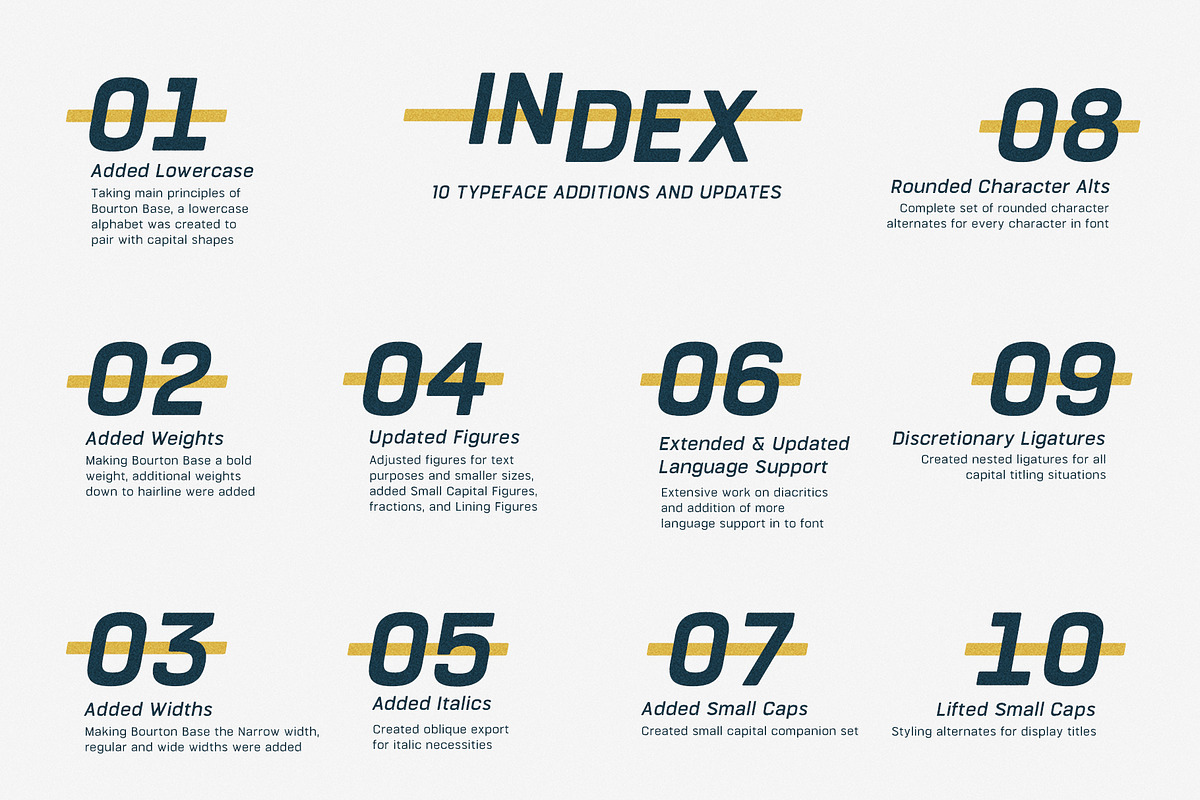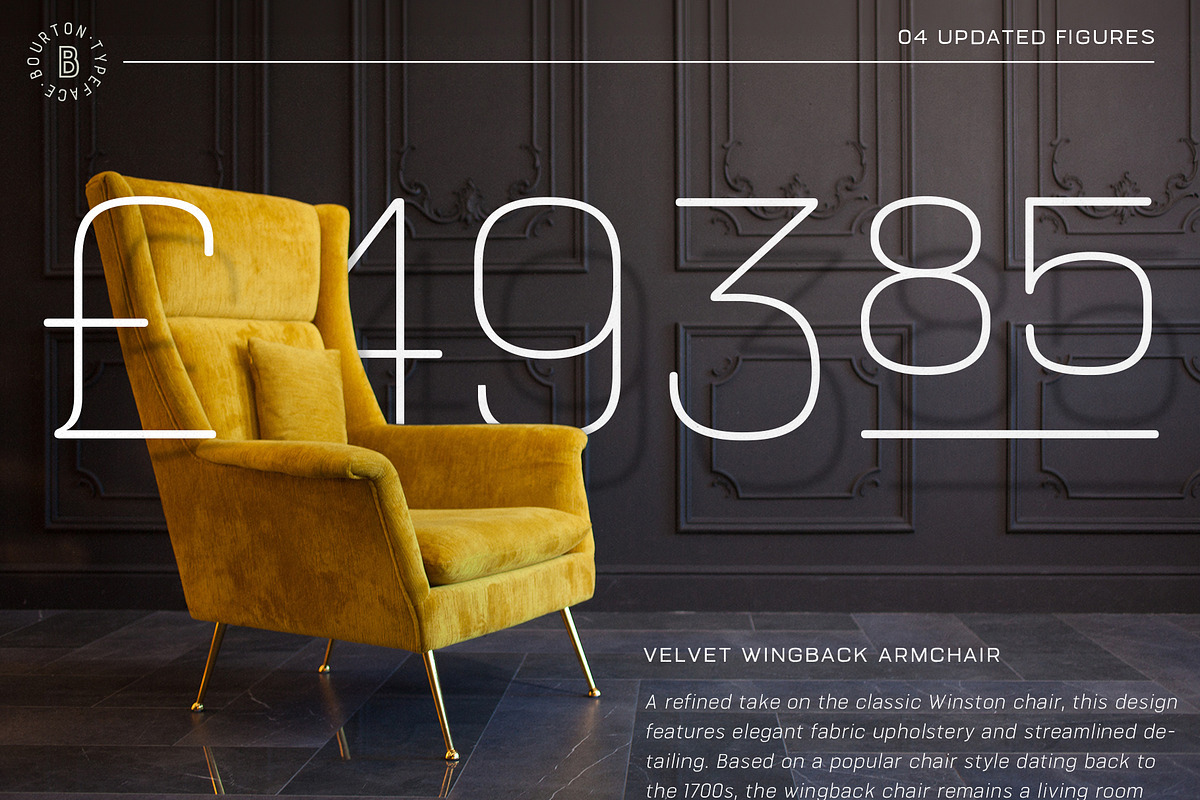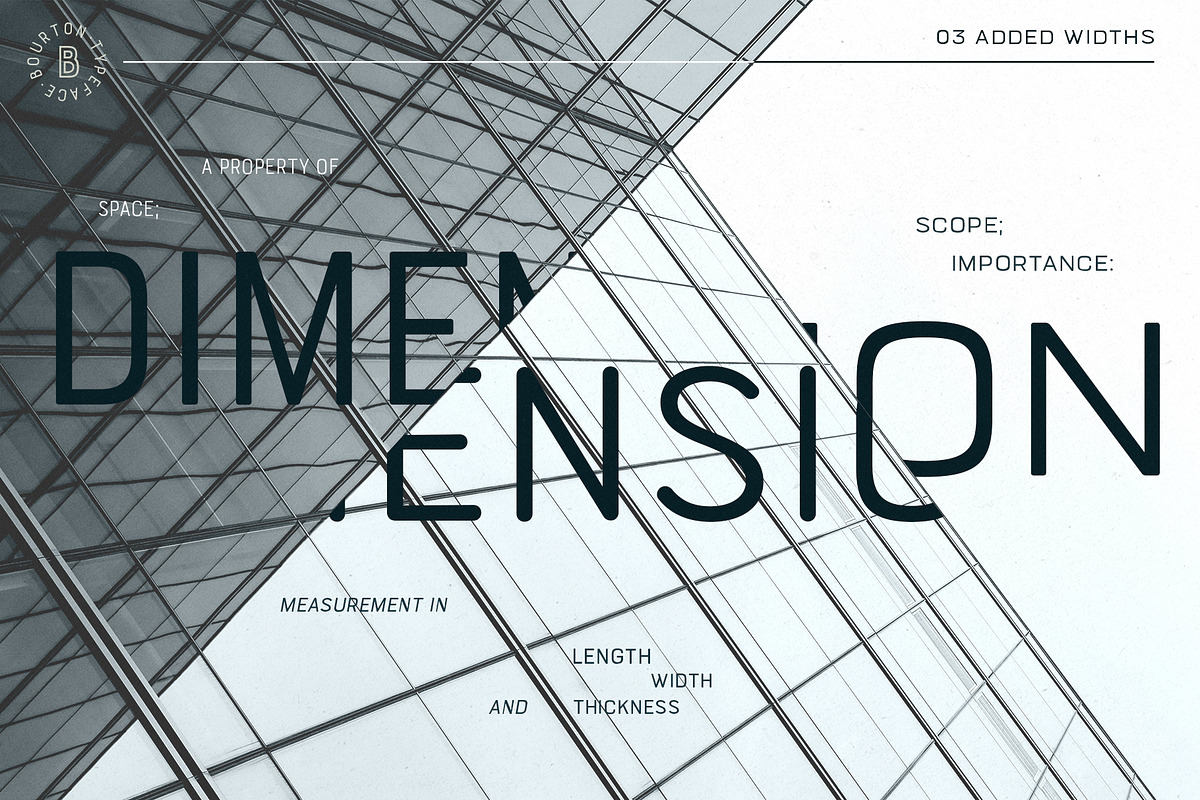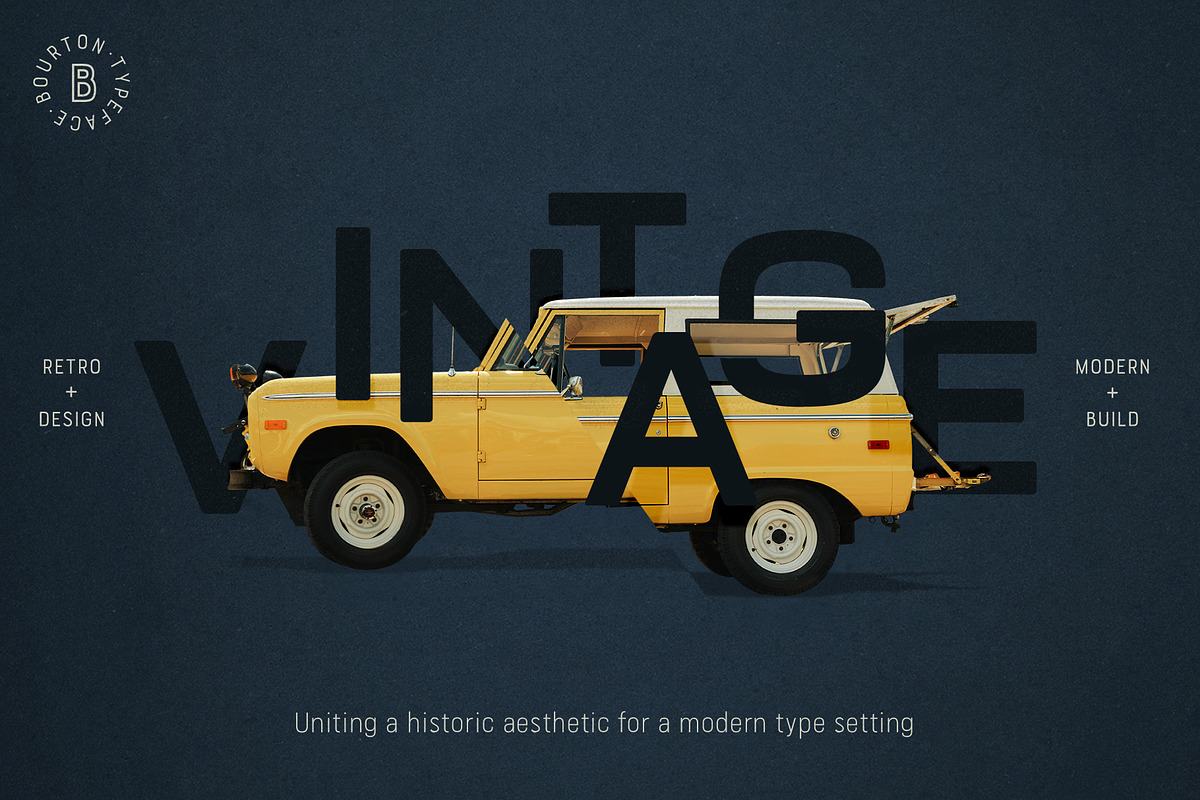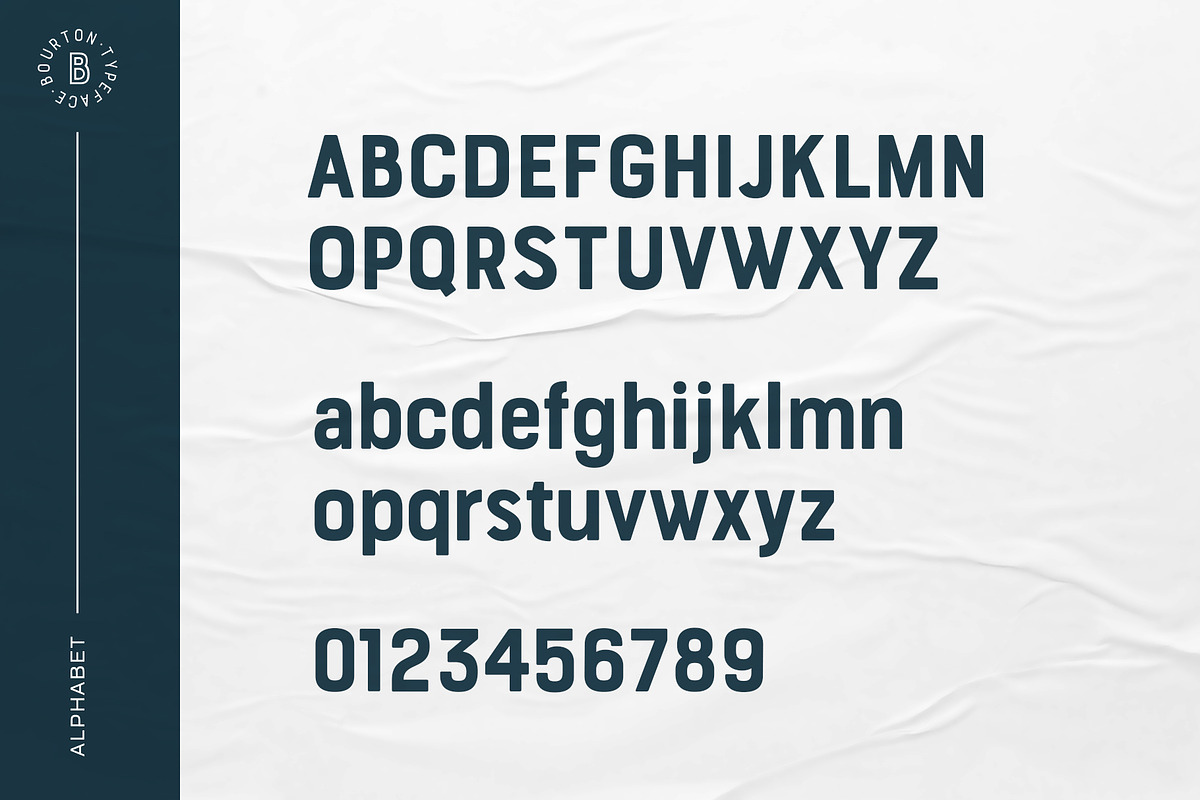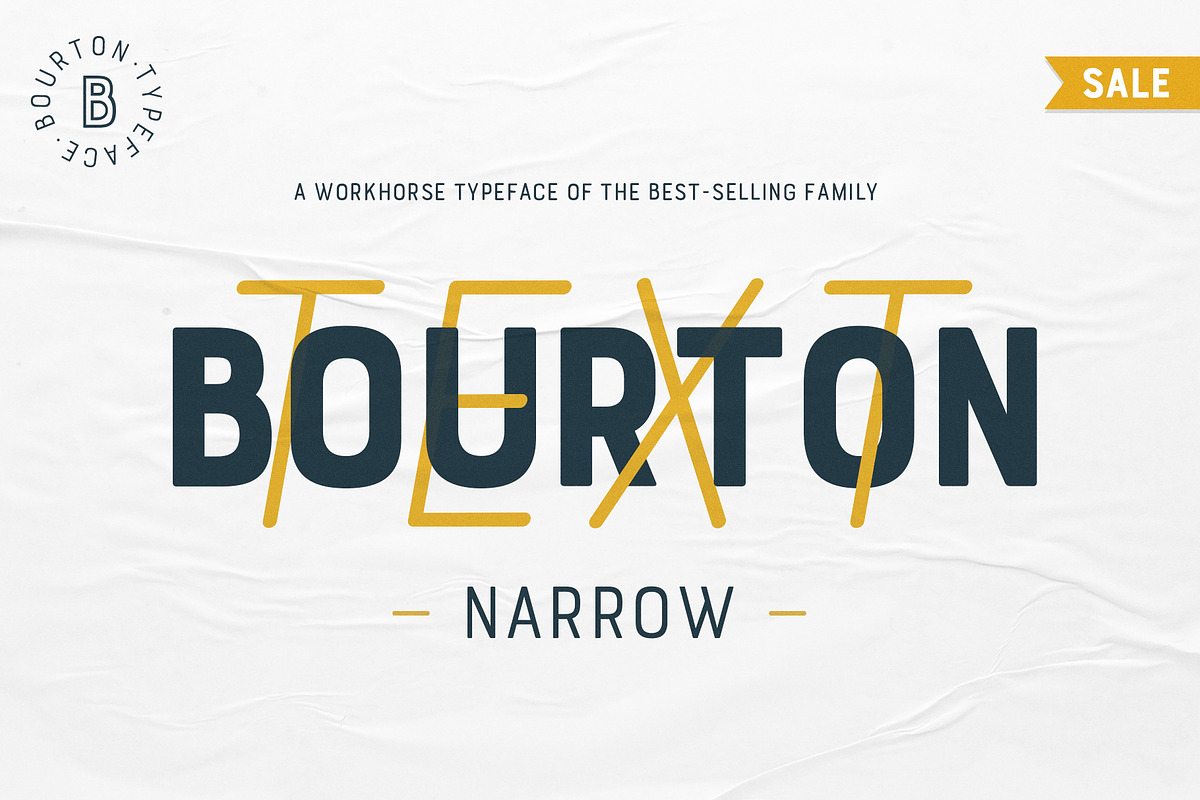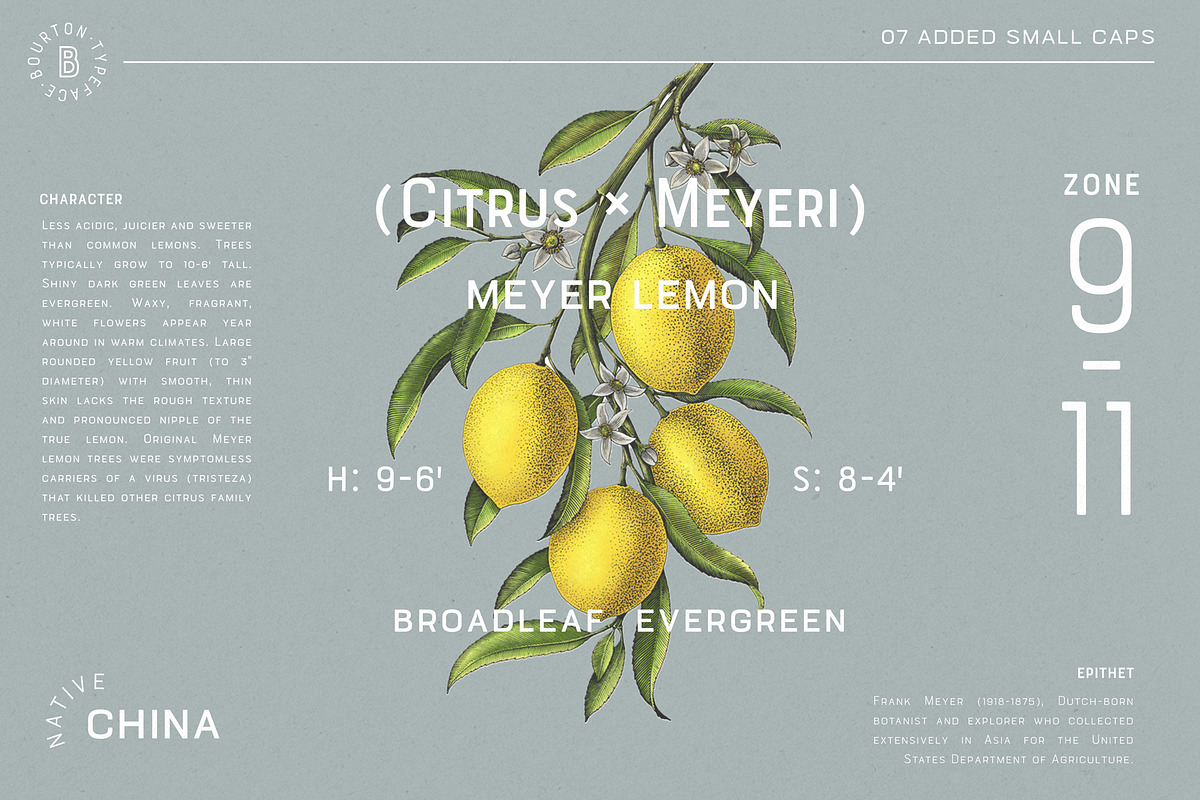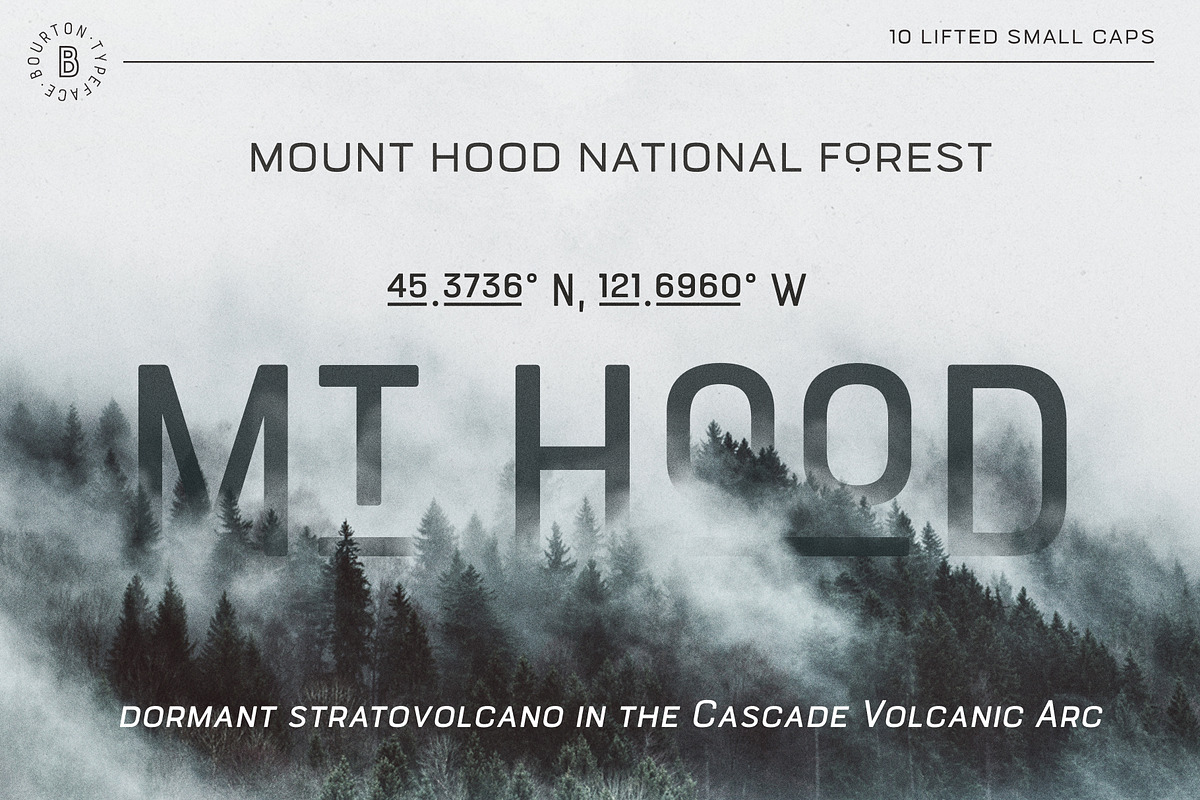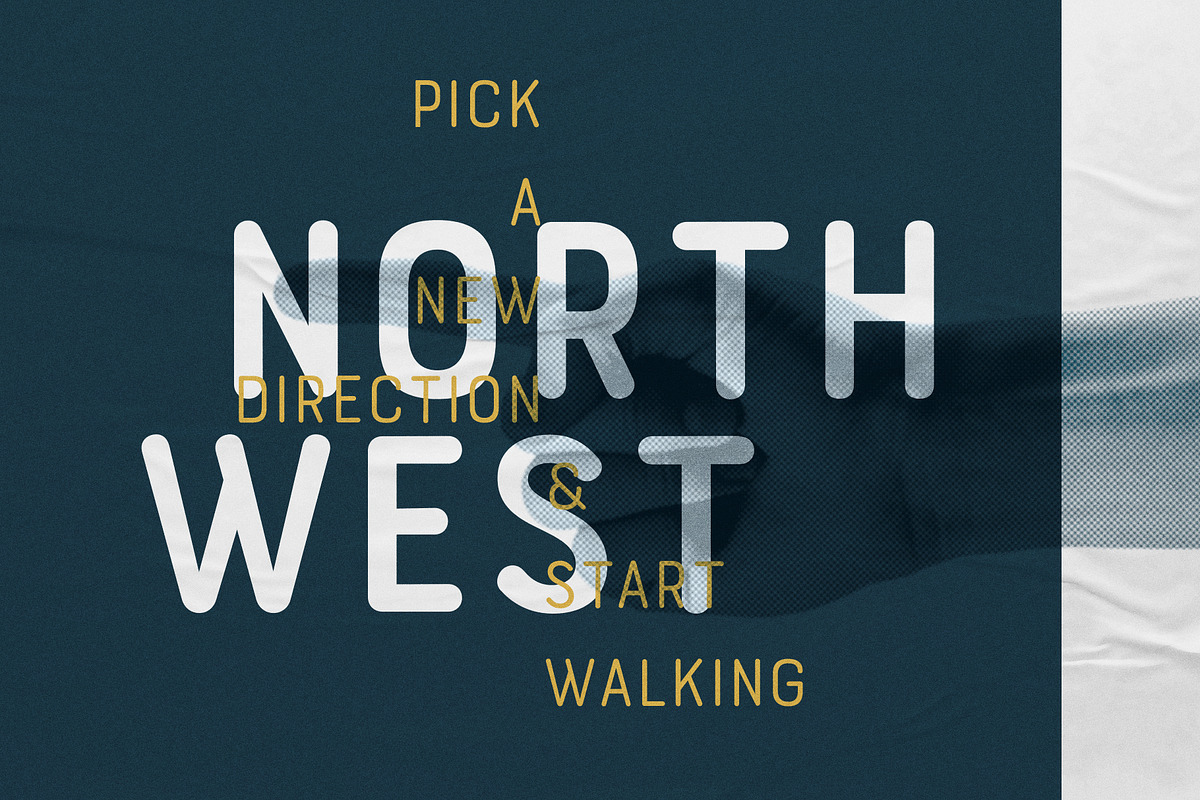
Bourton Text is a modern sans-serif typeface family perfect for both text type settings and display purposes. While it’s not a layering type family like its sibling, Bourton, it comes brimming with features, extras and over 2,000 characters in each of the 42 fonts that make it stand on its own.
HISTORY // Bourton Text is a new take of the Bourton family that was one of the best-selling and customer favorite fonts of 2016. After countless requests for lowercase alphabet, or suggestions for a font pairing with Bourton, this text setting family was created based on the original shapes of Bourton.
DESIGN & CREATION // In taking Bourton Base as the starting point, it became the narrowest width and boldest weight. Lowercase shapes were made to match the aesthetic and details of the popular capitals. As Bourton was a heavy display font, some small tweaks were done to make it more fitting for smaller text settings, including reducing the letter-spacing and reworking some counters. Some areas needed complete reconstruction, such as the figures. These shapes needed to begin anew with a style that worked with the capitals and lowercase but also as a standalone set. Currency shapes were updated to match the numerals. Punctuation was also reimagined to work better in smaller type settings. Diacritics and extended language support was also updated and expanded to include a full Latin plus language support for 219 languages spoken in 212 countries.
Once the basic alphabet for Bourton Text Bold Narrow was formed, the font was expanded in both weight and width. Taking the weight from Bold down to Hairline, it allowed for more range in use. The typeface needed to be expanded in order to reach better as a book weight and width, but was taken a step further with a wide setting as well.
FEATURES // Once the extremes were set in place, small capital forms were designed. These also allow for for text purposes but also display settings as well, with nested capital letters, lifted small caps and other display features offered in the typeface.
One of the most popular fonts in the Bourton layering font family is Bourton Line. Experimentation with creating completely rounded terminals and a complete set of duplicated characters was created. By using the Opentype Panel, a rounded font is a single click away.
Every feature has been carefully thought out and updated across the entire font. In total, Bourton boasts over 2,300 glyphs, 42 font files with 3 widths and 7 weights in upright and italic.